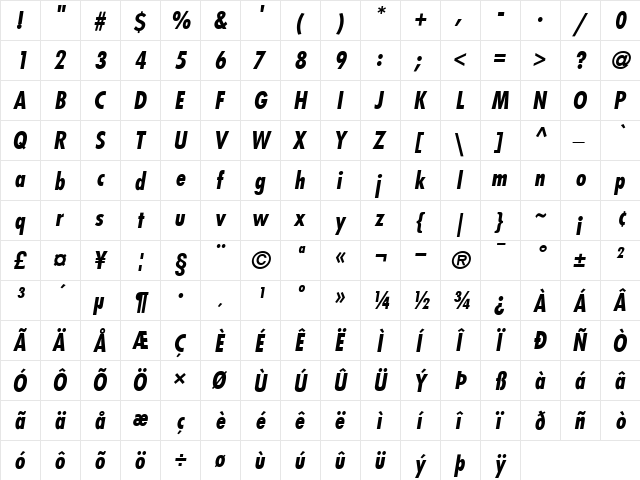
Futura-Condensed BoldItalic Font Preview
Design Context for Futura-Condensed Typeface
Futura-Condensed has a distinctly futuristic character, with geometric precision and clean angles that feel at home in technology, gaming, and sci-fi contexts. Its italic angle brings a sense of urgency and motion to the letterforms. Its bold stroke weight gives it real presence on the page. Its narrow stance lets it pack a punch even in space-constrained designs.
Pro Tip: Try Futura-Condensed with generous letter-spacing in UI labels and navigation — the geometric forms benefit from room to breathe.